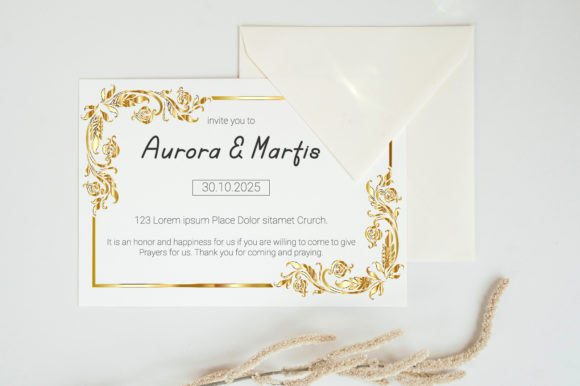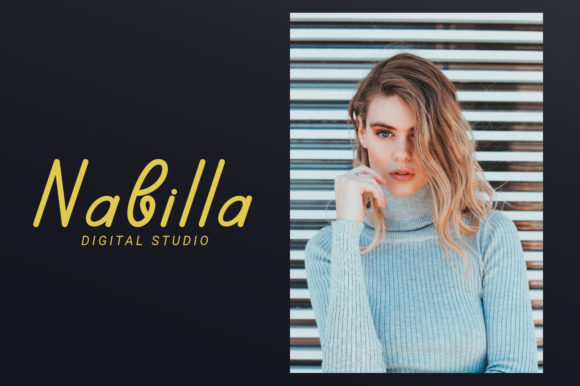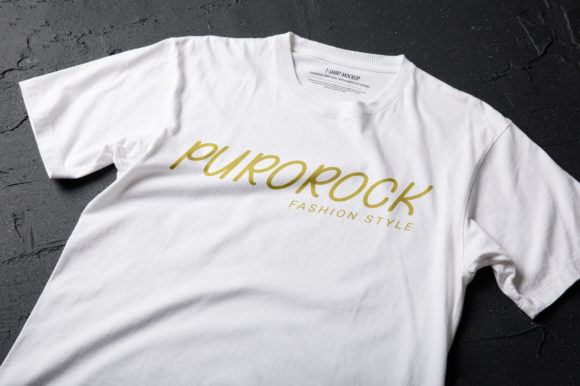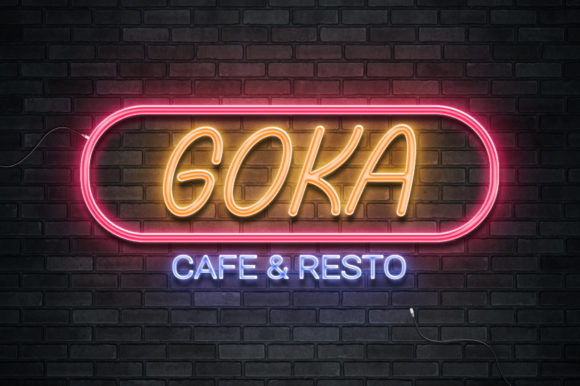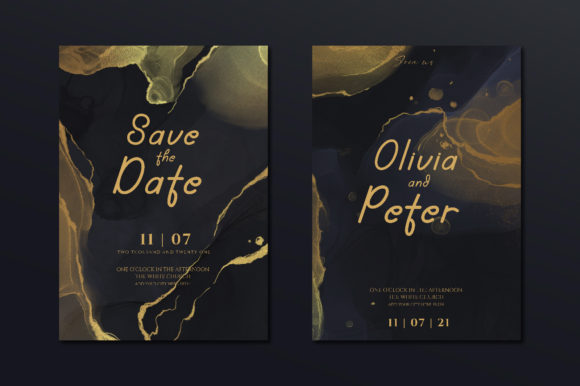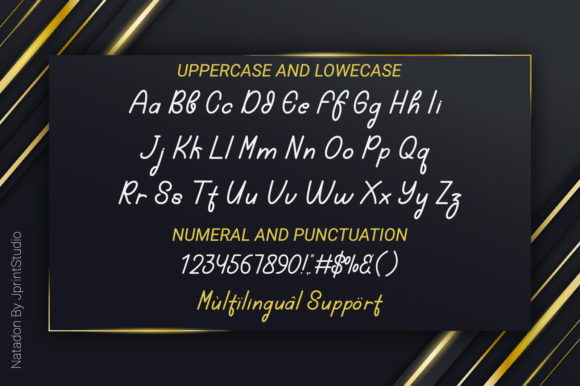
Introduction to Natadon Font
Remember the thrill of brainstorming a creative project, and the excitement of bringing your ideas to life? For designers, that moment is often a rush of inspiration, as the possibilities seem endless. But what happens when you need a font that perfectly captures the essence of your concept? That’s where the Natadon Font comes in – a delightful, handwritten font that can elevate any design project to new heights.
Whether you’re working on branding, headings, wedding designs, or invitations, the Natadon Font is a valuable design resource that can take your creative project to the next level. With its high-quality, free download, you can experiment with different layouts and styles without worrying about licensing fees or transparent background constraints. And with its versatility, you can use it for everything from logos to labels, making it a must-have for any designer’s toolkit.
Key Features of Natadon Font
- High-quality, professional design perfect for creative projects and presentations.
- Designed to be highly legible and visually appealing, making it a great addition to any design project.
- Unique, modern design that sets it apart from other fonts, perfect for designers looking for a distinctive look.
Honest Review: Natadon Font
I recently stumbled upon the Natadon Font, a free design resource that I was excited to test out in my latest creative project. Upon initial inspection, I was impressed by the high quality of the font’s sleek and modern aesthetic.
Here are some of the things that work well with the Natadon Font:
- Its transparent background allows for seamless integration with any background image or color, giving designers the flexibility to create a unique visual identity.
- The font’s clean and minimalist design makes it perfect for a wide range of creative projects, from digital signage to print materials.
- The Natadon Font is a single-weight font, which may not be ideal for projects that require a range of font weights and styles.
- The font’s versatility may also be limited by its modern aesthetic, which may not be suitable for more traditional or classic design projects.
Overall, I would say that the Natadon Font is a solid addition to any designer’s toolkit. Its high quality and flexibility make it a great choice for a wide range of creative projects, and its free download is a definite bonus. However, designers should be aware of its limitations and choose it accordingly.
Common Use Cases for Natadon Font
The Natadon Font is ideal for various design projects, including:
- Business card and stationery design